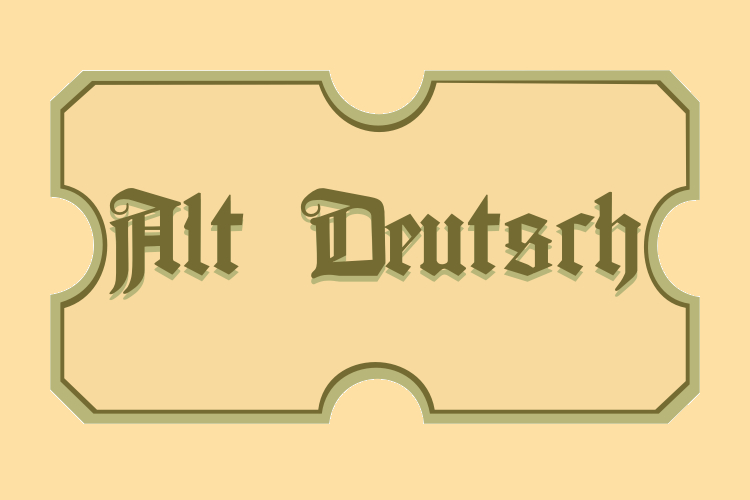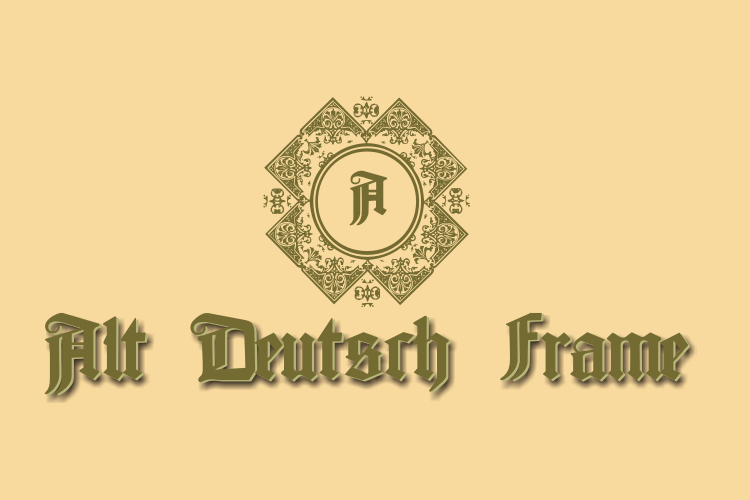
Alt Deutsche Font
About Alt Deutsche Font
Alt Deutsche is a bold and distinctive blackletter font that brings a touch of historic elegance to your designs. With its traditional Gothic-inspired style, this font adds a classic and timeless vibe to your text. Ideal for creating a sense of heritage or a touch of medieval flair, Alt Deutsche is perfect for projects that call for a strong and impactful visual presence. Make a statement with this unique blackletter font and infuse your designs with a touch of old-world charm.